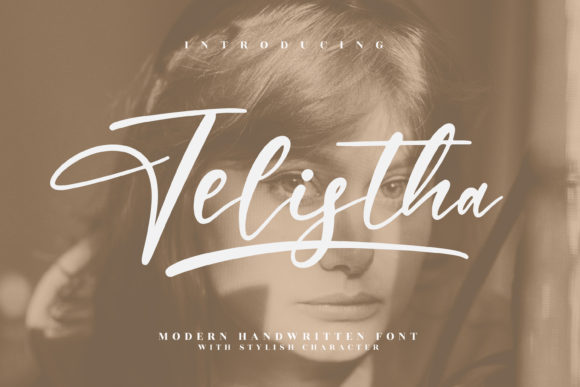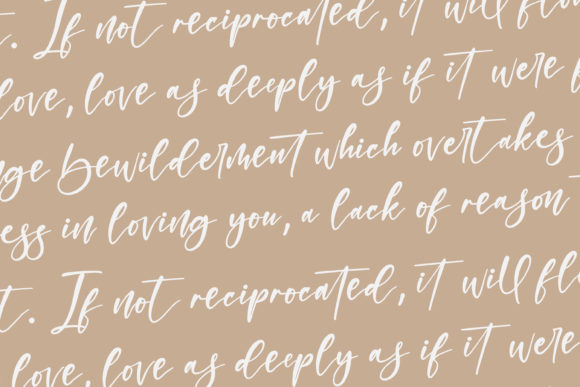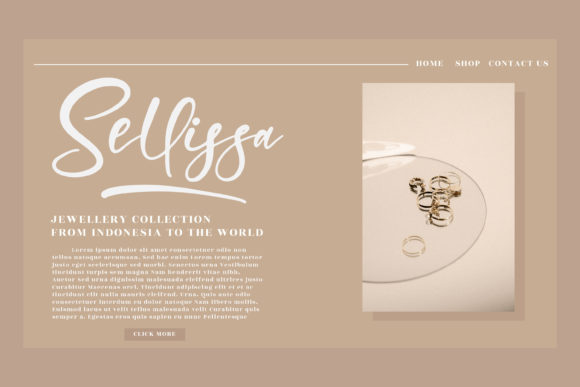
About Jelistha Font
Jelistha is a modern handwritten font, suitable for any projects such as logos, branding projects, homeware designs, product packaging, mugs, quotes, posters, shopping bags, t-shirts, book covers, name cards, invitation cards, and greeting cards.